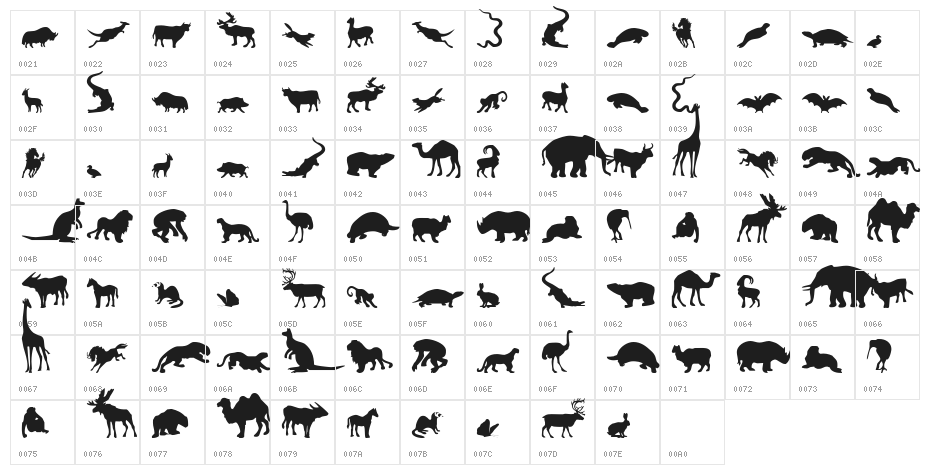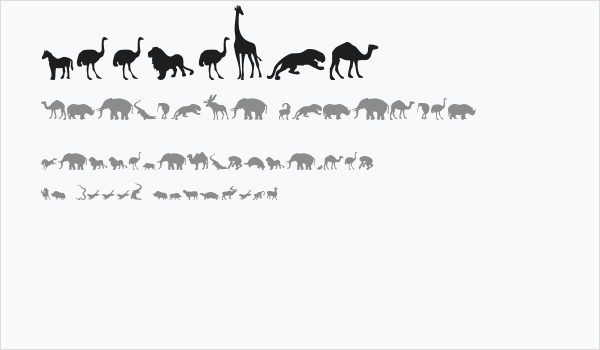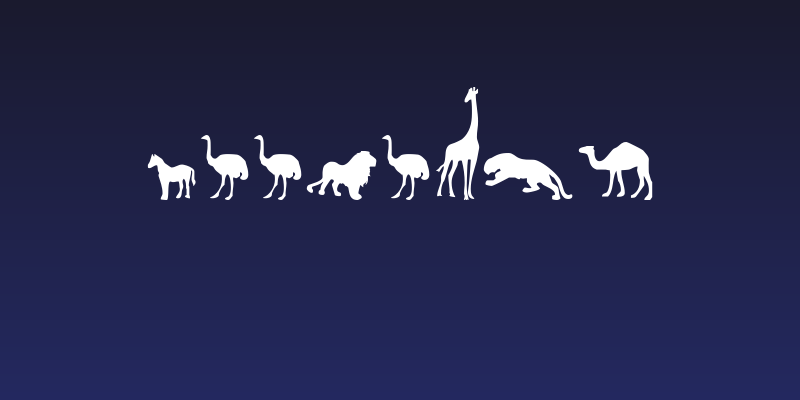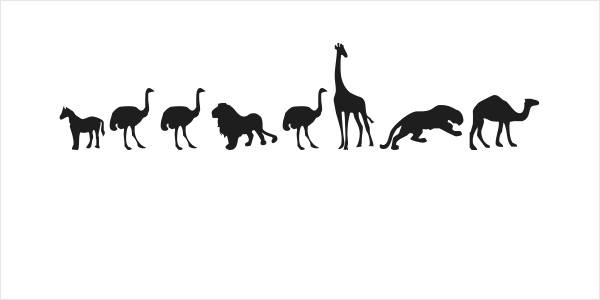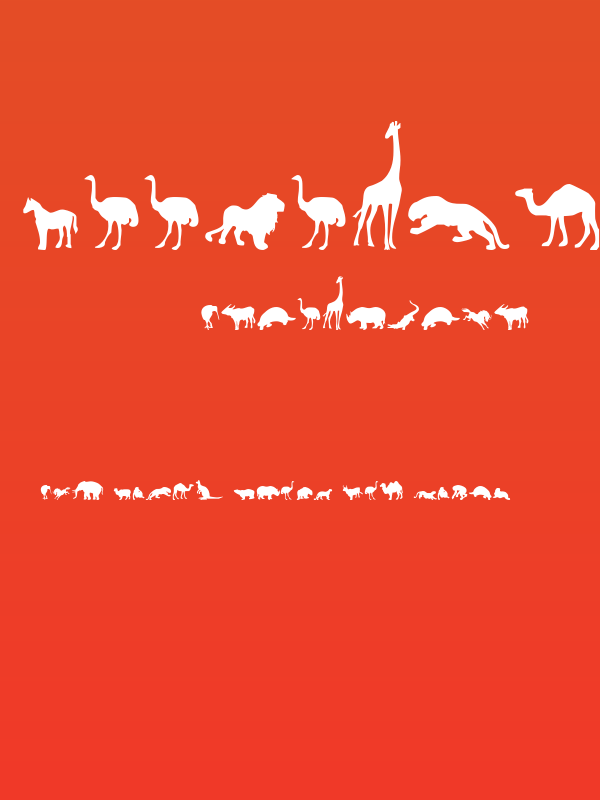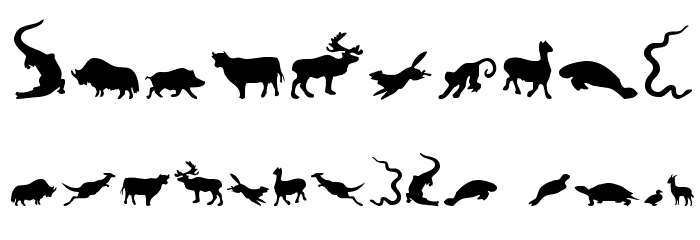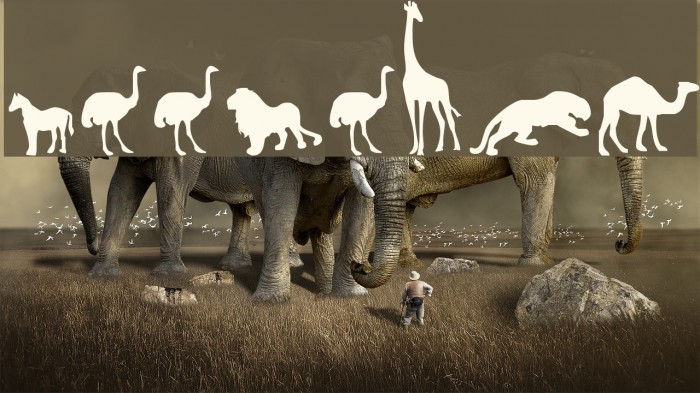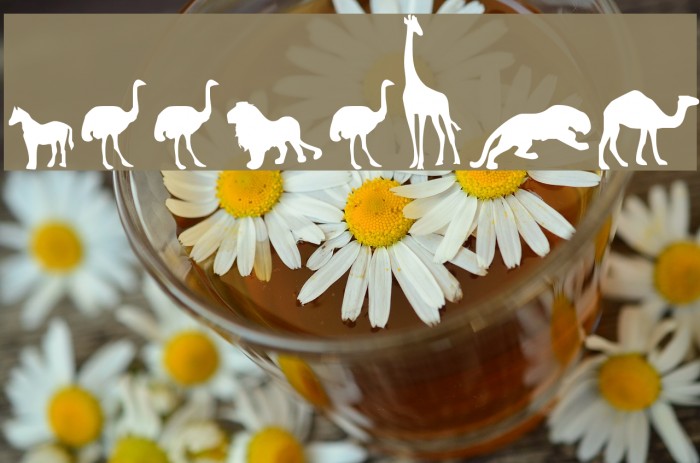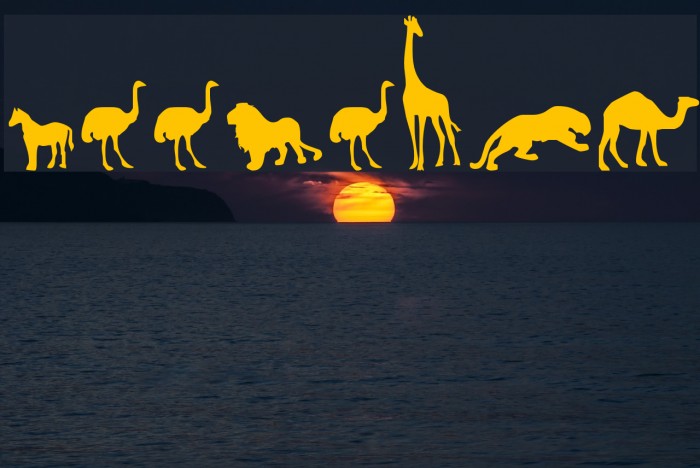
Zoologic Font
Zoologic Description
A collection of animal silhouettes in a consistent, bold, and simplified style, each representing a different species with clear, recognizable outlines and no internal details.
| Overall Style | Decorative, Modern |
| Use Case | Icons, Logos, Educational graphics, Decorative headings |
| Proposed Projects | Educational materials, children's books, wildlife posters, logo design, infographics, icon sets. |